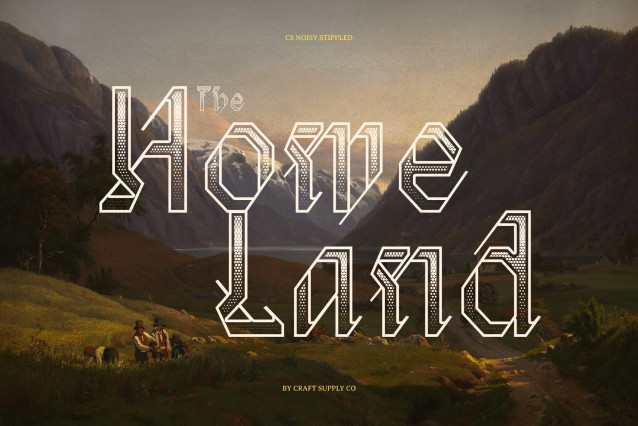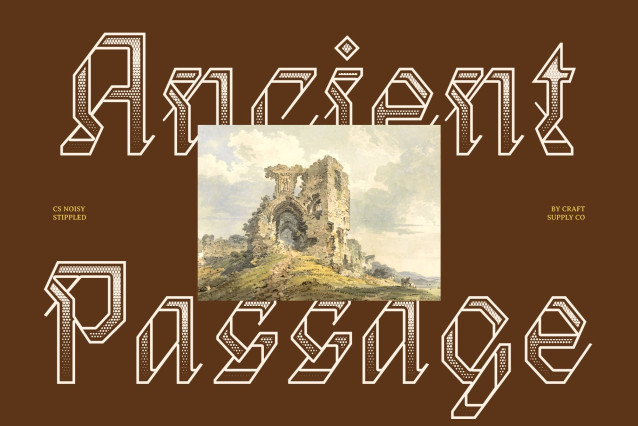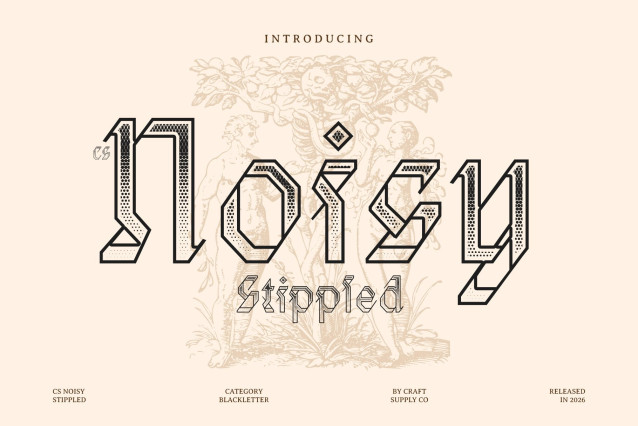
CS Noisy Stippled Font
CS Noisy Stippled – Blackletter Font: Heritage and Authority in Every Stroke
Traditional Blackletter Design
This is a striking blackletter display font that brings the intricate beauty of medieval calligraphy into modern design. With sharp, pointed serifs and angular strokes enhanced by a stippled texture, it captures the authentic spirit of traditional blackletter while adding a handcrafted visual depth.
Strong, Bold, and Authoritative
Built with a bold and commanding structure, this font delivers powerful visual impact. The combination of strong vertical strokes and detailed ornamentation creates a sense of authority and prestige, making it ideal for headlines, logos, and branding that demand attention and confidence.
Classic and Timeless Aesthetic
This is perfect for projects that celebrate heritage and tradition. From gothic-inspired logos and vintage branding to medieval-themed posters and editorial designs, its historic character ensures a refined and memorable presence.